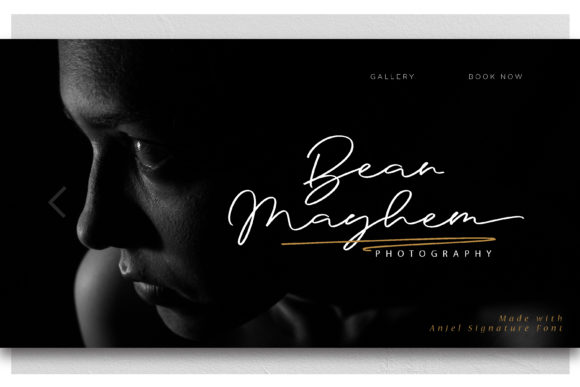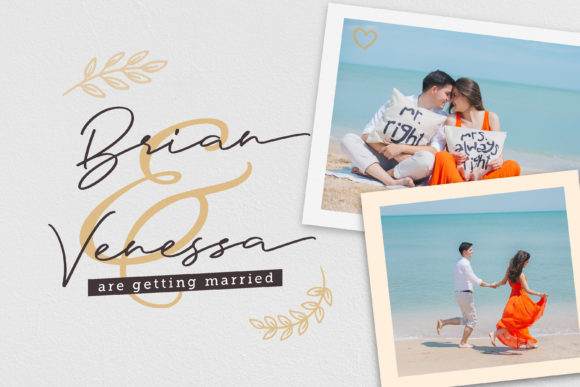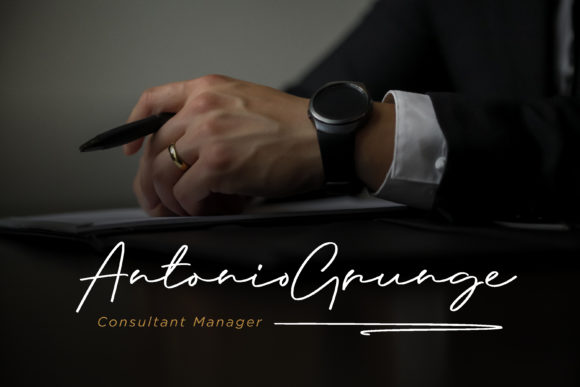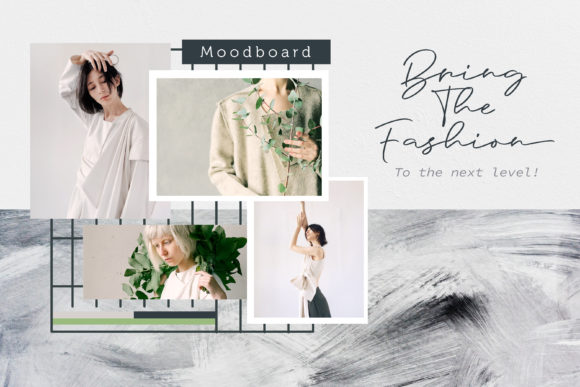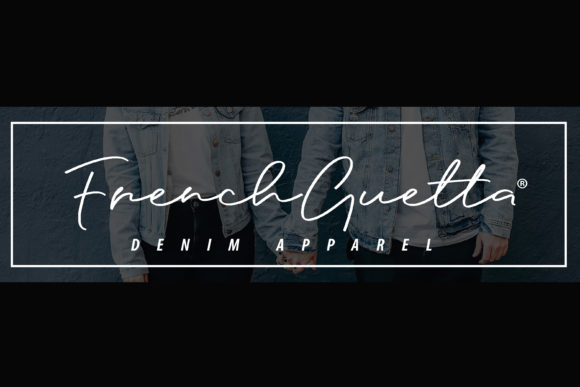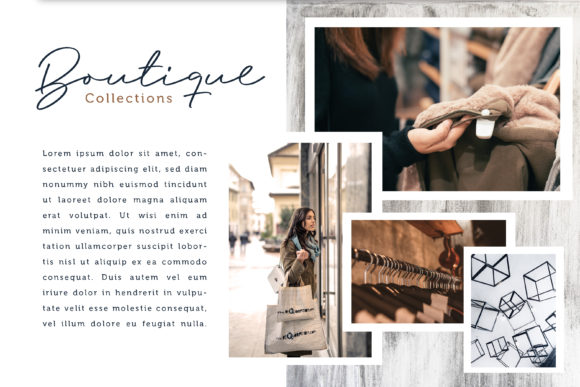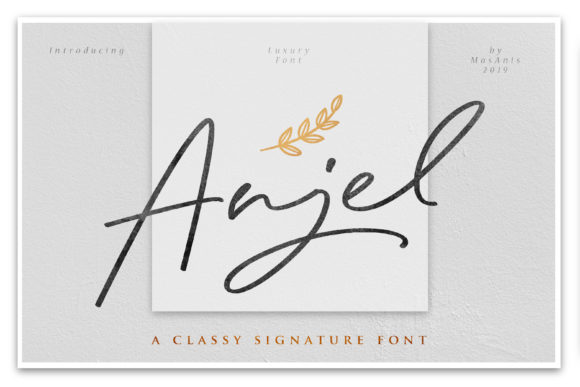
Introducing Anjel Font: Elevate Your Designs with Luxury and Elegance
In the world of typography, fonts play a crucial role in conveying the tone and personality of a brand or design. For those seeking to add a touch of luxury and sophistication to their work, the Anjel Font is an exceptional choice. This classy luxury signature font is designed to make a statement, and its versatility makes it suitable for a wide range of applications.
The Anjel Font: A Symbol of Elegance and Refinement
The Anjel Font is crafted to exude elegance and refinement, making it perfect for designs that demand a high level of sophistication. Its unique and stylish lettering is sure to capture attention and leave a lasting impression. Whether you’re working on a logo, watermark, branding materials, or prints, this font is guaranteed to elevate your design to new heights.
Endless Possibilities with Anjel Font
One of the standout features of the Anjel Font is its incredible versatility. It’s not just limited to one or two specific uses; instead, it can be applied to a myriad of projects, including:
• Watermarks: Add a touch of luxury to your photographs or digital artworks with the Anjel Font, making them instantly recognizable.
• Logos: Create a memorable brand identity with a logo that uses the Anjel Font, perfect for high-end businesses or personal branding.
• Branding: Consistency is key in branding, and the Anjel Font can be used across all your materials to create a cohesive and luxurious look.
• Prints: From business cards to letterheads, the Anjel Font can add a level of sophistication to any printed material.
• Magazines and Editorial Content: Use the Anjel Font for headings, subheadings, or even pull quotes to add an element of luxury to your editorial content.
Why Choose Anjel Font?
With so many fonts available, why should designers and crafters choose the Anjel Font? Here are a few compelling reasons:
• Unique Style: The Anjel Font boasts a unique and distinctive style that sets it apart from more common fonts.
• High Versatility: Its adaptability makes it suitable for a wide range of projects, from digital designs to print materials.
• Ease of Use: Despite its luxurious appearance, the Anjel Font is easy to use and can be incorporated into designs quickly and efficiently.
• Timeless Appeal: The elegance of the Anjel Font ensures it won’t go out of style anytime soon, making it a valuable addition to any designer’s toolkit.
Tips for Using Anjel Font Effectively
To get the most out of the Anjel Font, consider the following tips:
• Pair it Wisely: When using the Anjel Font alongside other typefaces, choose fonts that complement its luxurious feel.
• Consider Size and Weight: Experiment with different sizes and weights of the Anjel Font to create visual hierarchy and emphasis in your designs.
• Use it Sparingly: While the Anjel Font is stunning, it’s best used sparingly to maintain its impact. Use it for headlines or key messages to draw attention.
The Anjel Font is a game-changer for designers and crafters looking to infuse their work with a sense of luxury and elegance. Its unique style, versatility, and timeless appeal make it an invaluable resource for a wide range of projects. By incorporating the Anjel Font into your designs, you can ensure they stand out and leave a lasting impression on your audience.